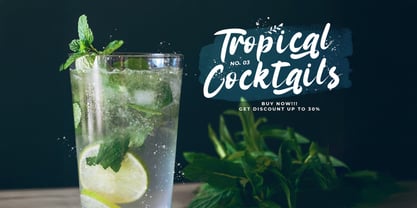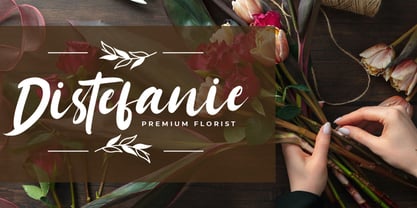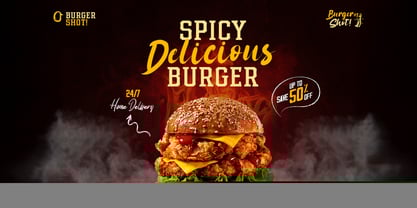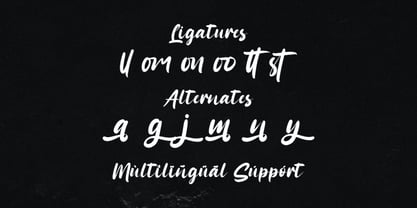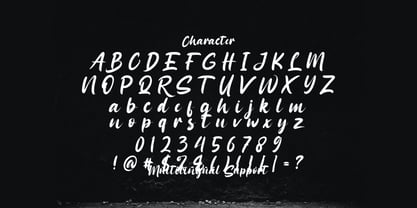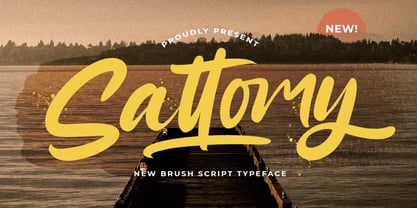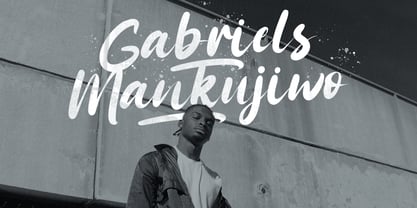
The Sattomy Font Family was designed by Virgiawan Listanto and published by Stringlabs Creative Studio. Sattomy contains 1 styles.
Sattomy is a soft and stylish handwritten font that radiates charm and simplicity. With its gentle curves and natural flow, this font adds a friendly and approachable vibe to your designs perfect for projects that need a personal, heartfelt touch. Whether you’re creating invitations, branding, or inspirational content, Sattomy brings a warm and modern feel to every word.
Sattomy